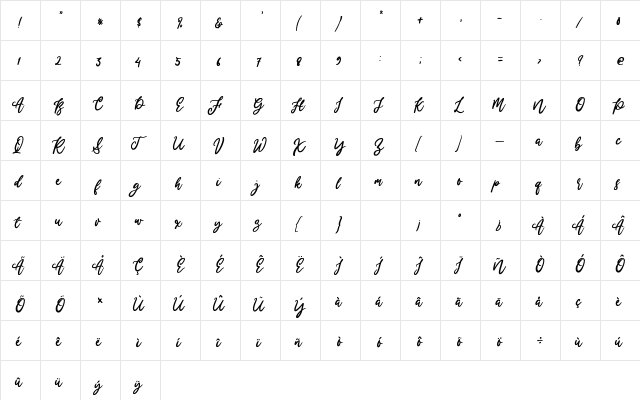
Merry Holly Regular
Design Context for Merry Holly Typeface
Merry Holly is a composed and adaptable typeface that performs quietly and consistently across a wide range of design contexts.